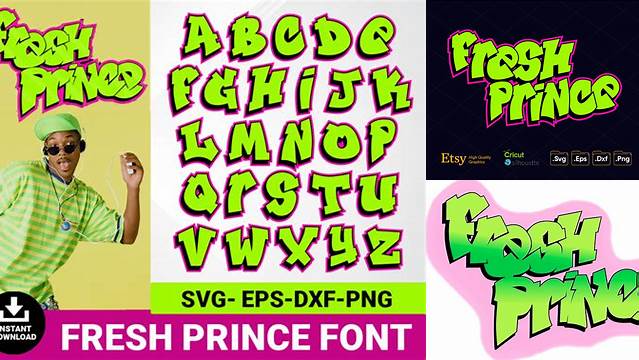
Fresh Prince Font: Free Download & Style Guide
Understanding the Iconic Fresh Prince Font
The Fresh Prince font, guys, is instantly recognizable. It's that cool, graffiti-inspired lettering that screams 90s hip-hop culture and the vibrant energy of Will Smith's early career. If you're looking to inject some serious nostalgia and a touch of urban flair into your designs, then snagging a free download of this font is a must. We're talking about a typeface that perfectly captures the essence of its namesake show, The Fresh Prince of Bel-Air. It’s bold, it’s a bit playful, and it has this undeniable swagger that still resonates today. Whether you're a graphic designer, a student working on a retro-themed project, or just someone who loves a good throwback, understanding the characteristics of this font is the first step. It’s not just about the look; it’s about the feeling it evokes – that sense of fun, optimism, and a bit of rebellious spirit. The curves, the slightly irregular baseline, and the overall handcrafted feel all contribute to its unique charm. This isn't your typical corporate sans-serif, oh no. This is a font with personality, designed to stand out and make a statement. When you see it, you immediately think of bright colors, boomboxes, and Will's iconic dance moves. It’s a visual shortcut to a whole era, and that’s powerful stuff for any creative endeavor. So, before we dive into the download specifics, let’s appreciate what makes this particular typeface so special and why it continues to be a beloved design element even decades later. It’s a true testament to good design that can transcend time and trends, bringing a piece of pop culture history right to your fingertips. Imagine using it for party invitations, album covers, or even custom t-shirts – the possibilities are endless, and the impact is guaranteed to be memorable. It’s the kind of font that makes people smile and immediately connects them to a shared cultural experience.
Why You Need the Fresh Prince Font in Your Design Arsenal
So, why bother hunting down the Fresh Prince font free download? Simple: versatility and major nostalgic impact. This font isn't just a one-trick pony; it's a gateway to unlocking a whole vibe. Think about it – you can use it for a retro party invitation that screams 90s. Or perhaps you're creating a mixtape cover or a blog post about 90s hip-hop culture? This font will instantly set the mood and grab attention. It’s perfect for anyone looking to add a playful yet edgy touch to their projects. It’s not overly formal, making it ideal for more casual or artistic applications. Beyond just aesthetics, using this font is a nod to a beloved era of television and music. It connects with audiences on an emotional level, tapping into shared memories and positive associations. People love nostalgia, and this font delivers it in spades. It’s like a visual hug from the past. Plus, when you find a free download, it’s a no-brainer! You get professional-level design impact without the cost. Imagine the possibilities: creating custom t-shirts with iconic quotes, designing social media graphics that stand out, or even personalizing stationery. This font has a way of making any text feel more dynamic and engaging. It’s the kind of typeface that doesn't just sit there; it does something. It adds personality, it tells a story, and it makes your work instantly more interesting. It’s the secret weapon for anyone wanting to evoke a specific time or feeling. So, if you’re aiming for a look that’s fun, memorable, and undeniably cool, this font should definitely be on your radar. It’s a fantastic way to pay homage to a cultural phenomenon while also creating something fresh and new for your own projects. Don't underestimate the power of a well-chosen font to elevate your entire design.
Exploring Variations of the Fresh Prince Style Font
While finding the exact font used in The Fresh Prince of Bel-Air might be tricky sometimes, the good news is there are plenty of awesome fonts that capture that same Fresh Prince style. These fonts often share that distinctive graffiti-inspired look, with bold strokes, energetic curves, and a generally urban, hip-hop feel. Think of fonts that have a hand-drawn quality, maybe a bit of a distressed texture, or even slightly irregular letterforms. These variations are fantastic because they offer flexibility. You might find a font that's a little cleaner, perfect for a more refined retro look, or another that’s grittier and more street-art oriented. Many designers create fonts specifically inspired by popular culture, and the Fresh Prince era is no exception. You can search for terms like "90s street art font," "bold graffiti font," or "Will Smith style font" to discover these gems. Some might even be part of font families, offering different weights or styles that can be mixed and matched. This is brilliant for creating visual hierarchy in your designs – maybe using a bolder version for headlines and a slightly more subdued one for body text. It’s all about capturing that energetic, playful spirit. When you're browsing, pay attention to the details: the way the letters connect (or don't connect!), the thickness of the lines, and the overall flow. Some fonts will lean more towards classic graffiti tags, while others might have a more modern interpretation of the style. The best part about exploring these variations is that you're not limited to just one option. You can find a font that perfectly suits the specific mood and message of your project. Plus, many talented typographers release these inspired fonts for free, so you can experiment widely without breaking the bank. It’s a great way to build a diverse font library that reflects your unique creative style and pays tribute to iconic cultural moments. Just remember to check the licensing for each one to ensure it aligns with your intended use, whether it's personal or commercial. Keep exploring, guys, because the perfect font is out there waiting for you!
The Nostalgic Appeal of 90s Graffiti Lettering
The nostalgic appeal of 90s graffiti lettering, especially when thinking about the Fresh Prince font, is immense, you guys. This style of typography instantly transports us back to an era defined by vibrant street art, the golden age of hip-hop, and a youthful, rebellious spirit. Graffiti lettering in the 90s wasn't just about tagging; it was an art form that expressed identity, creativity, and a sense of belonging. It was bold, dynamic, and often incredibly intricate, with custom lettering styles that became synonymous with crews and artists. When you see that distinctive style, like the one associated with The Fresh Prince, you're reminded of block parties, boomboxes blasting music, and the raw energy of urban culture. This aesthetic captured the zeitgeist of the time, reflecting a generation that was finding its voice through music, fashion, and visual expression. The lettering often featured bubble letters, wildstyle elements, and a certain fluidity that made each piece unique. It was a visual language spoken on the streets, and its influence permeated popular culture, from album covers and music videos to movie posters and, of course, iconic TV show title sequences. The Fresh Prince font is a perfect embodiment of this; it’s playful yet powerful, artistic yet accessible. Its popularity stems from its ability to evoke strong emotions and memories. For many, it’s a direct link to carefree days, cultural shifts, and the iconic style of Will Smith himself. Using this type of lettering in your designs today taps into that reservoir of positive nostalgia, making your work feel instantly relatable and engaging. It's a way to celebrate a significant cultural movement and inject a dose of authentic retro cool into modern projects. Whether you're aiming for a vintage vibe or simply want to add some personality, the 90s graffiti aesthetic is a timeless choice that continues to capture hearts and imaginations, proving that some styles are just built to last. It's a powerful reminder of how art and culture intertwine.
Why is the Fresh Prince font so popular?
Okay, so why exactly is the Fresh Prince font so popular, even decades later? It boils down to a potent cocktail of nostalgia, cultural significance, and sheer design appeal, guys. Firstly, The Fresh Prince of Bel-Air was a cultural phenomenon. It wasn't just a TV show; it was a representation of a generation, blending humor, social commentary, and aspirational style. The font used in its iconic title sequence became inextricably linked to this beloved show and its star, Will Smith. Every time you see that font, it triggers memories of witty one-liners, heartfelt moments, and that unmistakable 90s vibe. It’s a direct line to a happy, often simpler time for many people. Secondly, the font itself has a distinctive aesthetic that’s incredibly appealing. It embodies the spirit of 90s hip-hop and street culture – think bold, graffiti-inspired lettering with a playful, energetic flow. It’s not a stuffy, corporate font; it has personality, swagger, and a dash of rebellion. This makes it incredibly versatile for creative projects looking to capture that specific mood. It’s visually arresting and memorable. Thirdly, in the age of resurgent 90s fashion and music, this font fits perfectly into the current retro trend cycle. People are actively seeking out elements that evoke that era, and this font is a prime example. It allows designers and fans to connect with and celebrate that cultural moment. Plus, the accessibility of free downloads for similar styles means anyone can incorporate this iconic look into their own creations, further spreading its popularity. It’s a font that tells a story, evokes emotion, and looks undeniably cool, making it a enduring favorite in the design world. It’s the perfect blend of art, pop culture, and lasting style.
Tips for Using the Fresh Prince Font Effectively
Alright, you've got the Fresh Prince font installed and ready to go. Now, how do you use it like a pro? It’s all about context and balance, guys. This font has a lot of personality, so it works best when you lean into that. Think bold headlines, catchy taglines, or statement pieces. It’s fantastic for projects that celebrate 90s culture, hip-hop, or have a generally fun, urban, and energetic vibe. For instance, use it for party flyers, album art, social media graphics, or even custom merchandise like t-shirts and phone cases. However, because it’s so distinctive, it's often best used as an accent rather than for large blocks of body text. Imagine using it for the main title of a presentation about 90s pop culture, paired with a simpler, more readable sans-serif font for the supporting information. This contrast ensures your main message pops while keeping the overall design legible and professional. Another great tip is to experiment with color. This font looks killer in bright, bold colors that reflect the 90s aesthetic – think electric blue, neon green, or vibrant yellow. But don't be afraid to try it in classic black or white for a strong, graphic impact too. Consider the background – a simple, solid background often works best to let the font truly shine. Avoid overly busy backgrounds that might compete with its detailed style. And remember that free download aspect; while it’s accessible, ensure you're using it according to its license, especially for commercial projects. Play around with different sizes and spacing (kerning) to get the perfect look. Sometimes, slightly tighter spacing can enhance its bold, connected feel. Ultimately, use this font when you want your design to have undeniable swagger and a memorable retro punch. It’s meant to be seen and enjoyed, so let it make a statement!
Leveraging Retro Typography for Modern Designs
Using retro typography, like the Fresh Prince font, in modern designs is a super smart way to add character and stand out, guys. It taps into that powerful wave of nostalgia that people just can't get enough of. By incorporating elements from past eras – whether it's the bold, graffiti style of the 90s or the groovy vibes of the 70s – you're essentially borrowing a piece of cultural history to make your current project feel fresh and relevant. The key is to blend the old with the new. You don't want your design to look like it's actually from the 90s; you want it to feel contemporary with a nod to the past. Pair a strong retro font like the Fresh Prince style with clean, modern layouts, minimalist design elements, or contemporary color palettes. This juxtaposition creates visual interest and ensures your design feels current rather than dated. For example, you could use the Fresh Prince font for a key heading on a website with a sleek, flat design aesthetic, or perhaps on a product label for a craft beverage brand that wants to evoke a sense of fun and nostalgia without looking old-fashioned. It’s about using the retro element strategically to add personality and a talking point. Think of it as a statement accessory – it enhances the overall look without overwhelming it. This approach works exceptionally well for brands targeting millennials or Gen Z, who often have a strong appreciation for the aesthetics of the 90s and early 2000s. It’s a way to connect with these audiences on a deeper, more cultural level. So, don't shy away from those old-school fonts; embrace them as tools to create unique, memorable, and engaging modern designs. They’re a fantastic way to tell a story and add that extra layer of cool factor. It’s about respecting the past while designing for the future.
Finding Fonts with a Similar 90s Hip-Hop Aesthetic
If you’re digging for fonts that nail that 90s hip-hop aesthetic similar to the Fresh Prince font, you’re in for a treat, guys. This era was defined by bold, expressive lettering that often drew inspiration from graffiti art, street culture, and the raw energy of the music itself. When searching, use terms like "hip hop font," "90s graffiti font," "urban style font," "breakdance font," or even "old school hip hop font." Many fonts from this period feature thick, rounded strokes, sometimes called